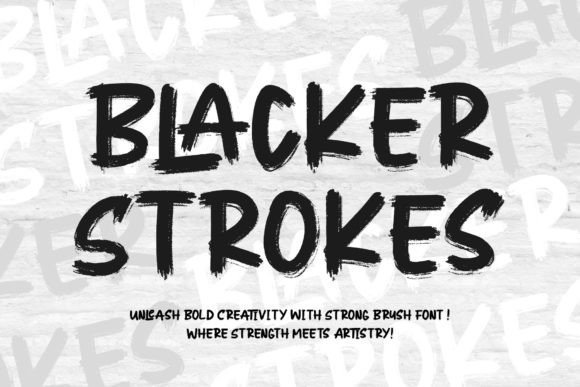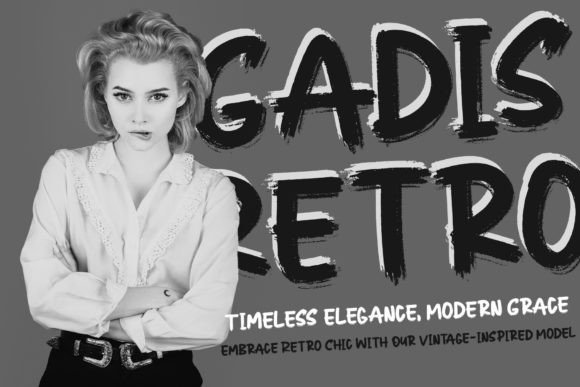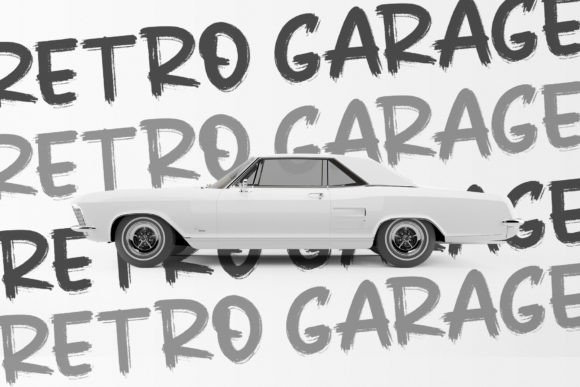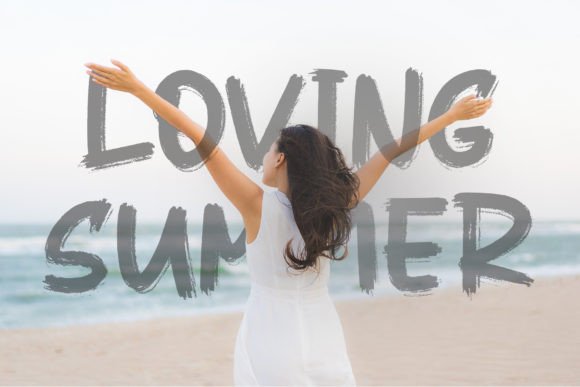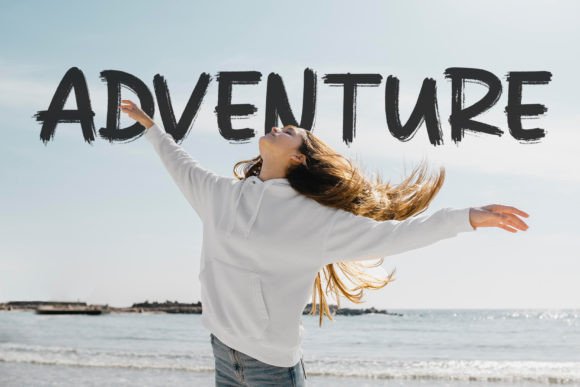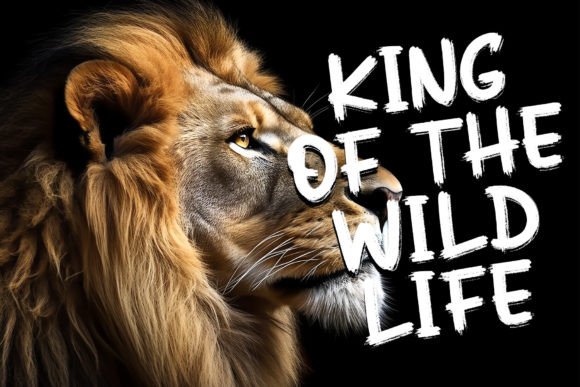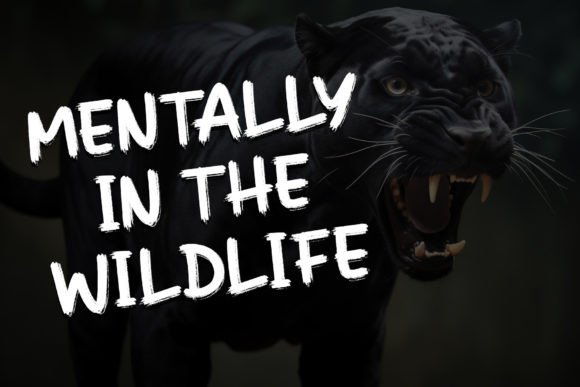
Unlock the Power of Hand-Drawn Beauty
As a designer, there’s a moment when you stumble upon a font that sparks your creativity and makes you want to create something truly unique. For many, it’s the gentle scratch of a pencil on paper or the fluid movement of a paintbrush that brings their designs to life. The Blacker Strokes Font captures this essence, infusing your projects with the wild beauty of natural brush strokes.
This versatile font is more than just a design element – it’s a game-changer for logos, branding, and any project that needs a touch of character. With its mesmerizing design and PUA code for easy access to captivating glyphs, the Blacker Strokes Font is your artistic ally for limitless design possibilities and lasting impressions.
Blacker Strokes Font Key Features
- Font Family: Blacker Strokes is a unique handwritten font family that offers a wide range of styles and weights.
- Character Count: The font family includes over 1,500 characters, including uppercase and lowercase letters, numbers, punctuation, and special characters.
- Unique Characteristics: Blacker Strokes features a distinctive handwritten style with subtle imperfections, giving it a unique and personal touch.
Blacker Strokes Font Review
Overall, I was pleasantly surprised by Blacker Strokes Font. It’s a unique and creative font that can add a touch of elegance to any design project. ✨
One of the things that I appreciate about this font is its versatility. It can be used for a variety of projects, from fashion to art to editorial design. The font’s bold lines and dynamic strokes give it a sense of energy and movement, making it perfect for headings and titles. ✨
However, I did encounter a few limitations. The font can be quite busy, especially when used in large blocks of text. This can make it difficult to read and can lead to visual fatigue. Additionally, the font’s lack of subtlety can make it feel overbearing in some contexts. ⚠️
Here are some pros and cons to consider:
- ✨ Unique and creative design
- ✨ Versatile and suitable for a variety of projects
- ✨ Bold lines and dynamic strokes add energy and movement
- ⚠️ Can be busy and difficult to read in large blocks
- ⚠️ Can feel overbearing in some contexts
Overall, I would recommend Blacker Strokes Font for designers who want to add a touch of creativity and elegance to their projects. However, it’s not suitable for every project, and designers should be cautious when using it in large blocks of text or in contexts where subtlety is required.
The Blacker Strokes Font is ideal for:
– Creative designs and illustrations
– Fashion and beauty branding
– Luxury and high-end products
– Digital art and graphics
Tips: Use the Blacker Strokes Font to add a touch of creativity and sophistication to your designs.